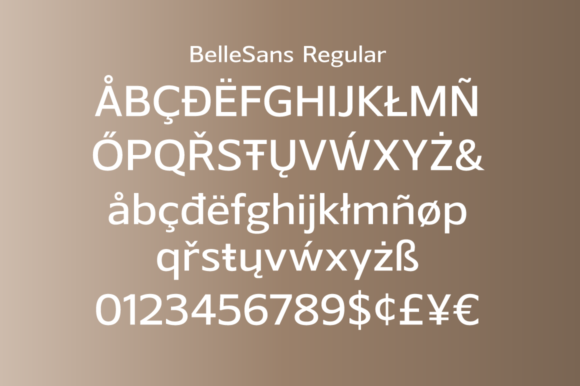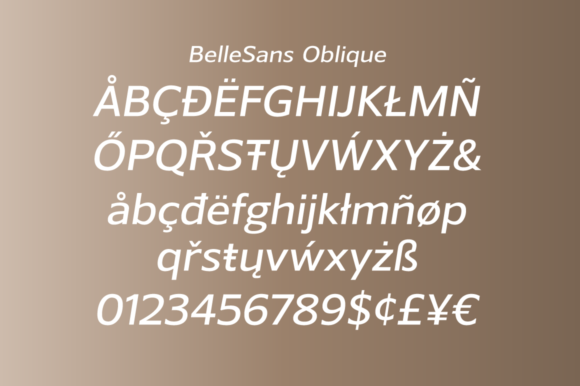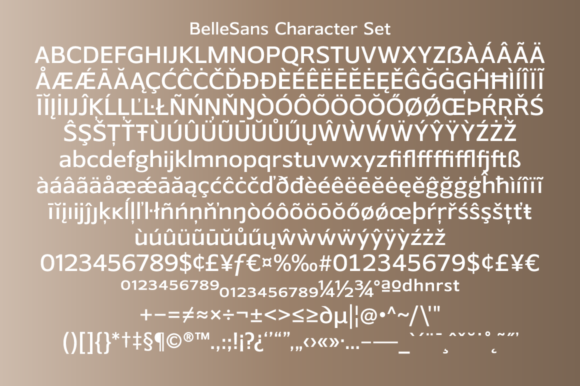
Belle Sans Regular and Oblique Font: Elevate Your Designs with a Modern Twist
In the world of typography, a font can make or break a design. It’s the foundation upon which the entire visual identity is built. For designers and crafters looking to add a touch of modernity and cleanliness to their projects, Belle Sans Regular and Oblique Font is an excellent choice. This versatile sans serif font is designed to make your creative ideas stand out, and in this article, we’ll explore what makes Belle Sans a must-have in your font collection.
The Essence of Belle Sans
Belle Sans is a clean and modern looking sans serif font that exudes simplicity and elegance. Its uncluttered design makes it incredibly versatile, allowing it to be matched with an incredibly large set of projects. Whether you’re working on a branding project, a website, a print design, or any other creative endeavor, Belle Sans can be the perfect companion.
Key Features of Belle Sans
- Clean and Modern Design: Belle Sans boasts a sleek and contemporary look that will instantly elevate your designs.
- Versatility: Its sans serif design makes it suitable for a wide range of projects, from digital platforms to print materials.
- Regular and Oblique Styles: Belle Sans comes in both regular and oblique styles, providing you with flexibility in your designs.
- Ease of Use: This font is easy to read and works well in both headings and body text, making it a practical choice for various applications.
Why Choose Belle Sans?
Choosing a font for your project can be overwhelming with the numerous options available. However, Belle Sans stands out for several reasons:
- Universal Appeal: Its clean lines and modern aesthetic appeal to a wide audience, making it perfect for projects aimed at diverse demographics.
- Legibility: Belle Sans is highly legible, even at smaller sizes, ensuring your message is conveyed clearly.
- Customization: With both regular and oblique versions, you have the flexibility to use the font in various contexts, from formal to casual.
Applications of Belle Sans
The versatility of Belle Sans means it can be used in a multitude of projects:
- Branding and Logos: Create a lasting impression with a clean and modern logo.
- Web Design: Enhance your website’s user experience with a font that’s easy to read and visually appealing.
- Print Materials: From brochures to business cards, Belle Sans can add a professional touch to your print designs.
- Digital Media: Use it in your social media graphics, presentations, and more to maintain a consistent brand image.
How to Use Belle Sans Effectively
To maximize the impact of Belle Sans in your designs:
- Pair it with Complementary Fonts: While Belle Sans is versatile on its own, pairing it with complementary fonts can add depth and interest to your designs.
- Experiment with Sizes and Weights: Don’t be afraid to experiment with different sizes and weights to create visual hierarchy and emphasis.
- Consider Your Audience: Ensure that the font choice aligns with your project’s goals and appeals to your target audience.
Belle Sans Regular and Oblique Font is a powerful tool for designers and crafters looking to infuse their projects with a modern and clean aesthetic. Its versatility, legibility, and universal appeal make it an excellent addition to any design toolkit. By incorporating Belle Sans into your creative process, you’ll be well on your way to creating visually stunning and effective designs that stand out in a crowded digital landscape.